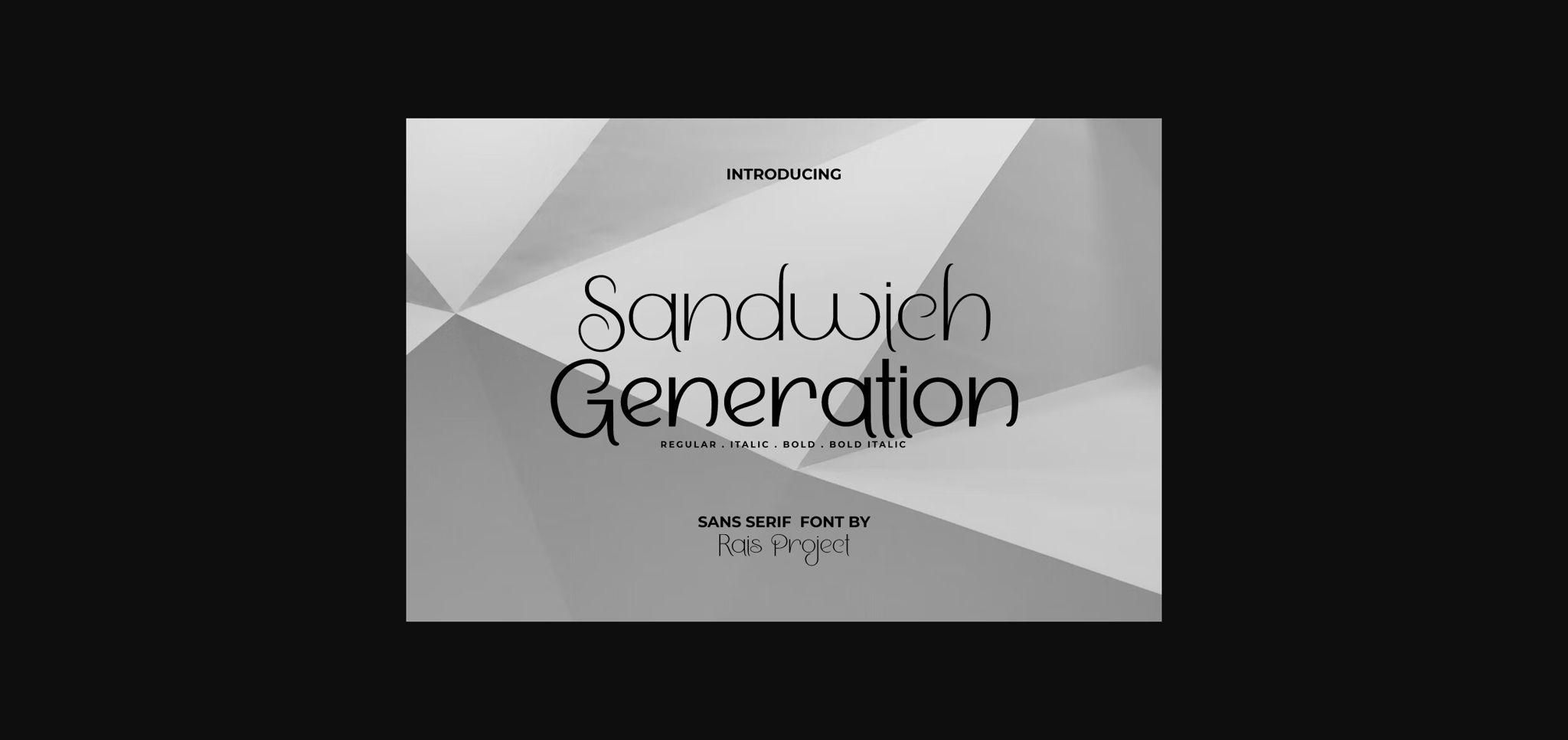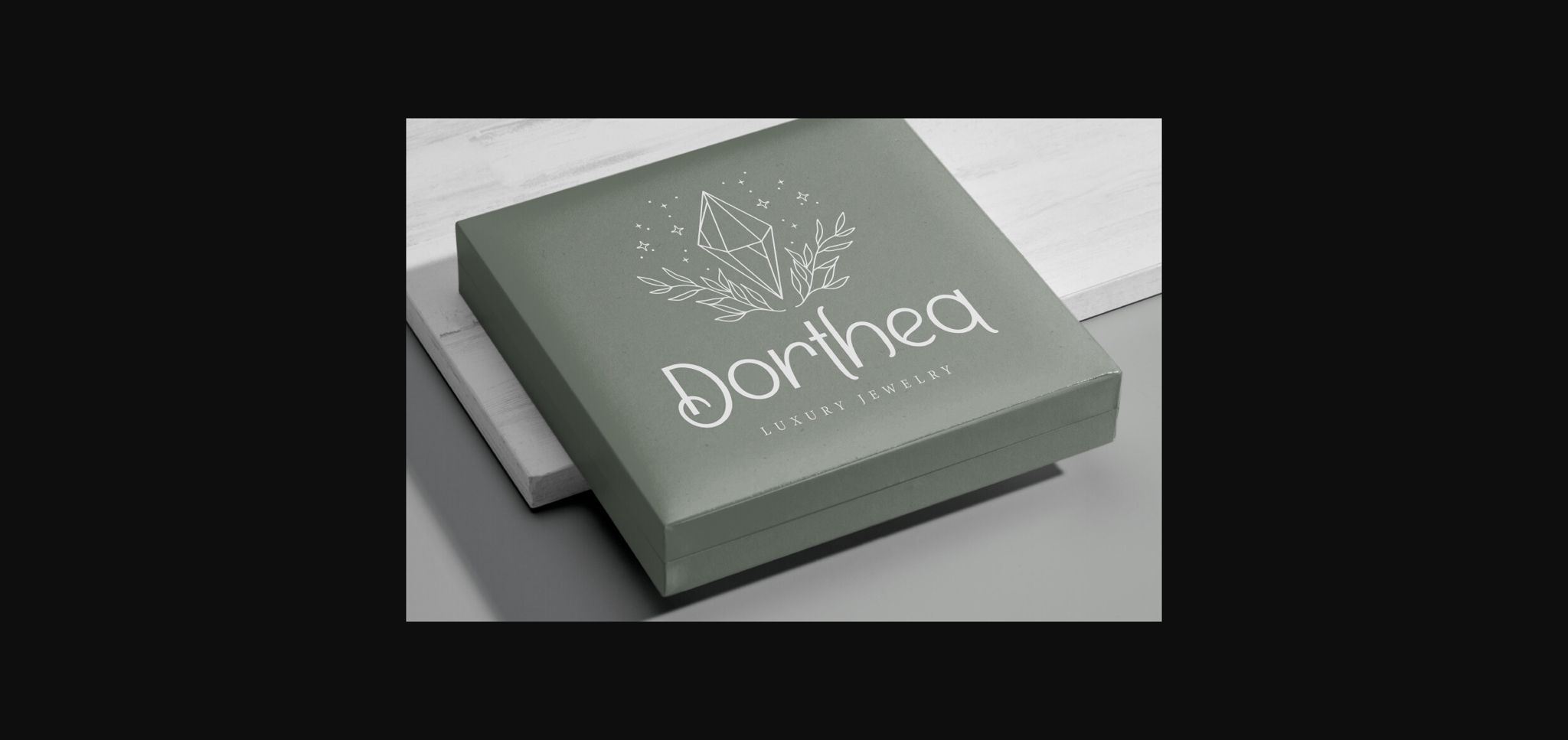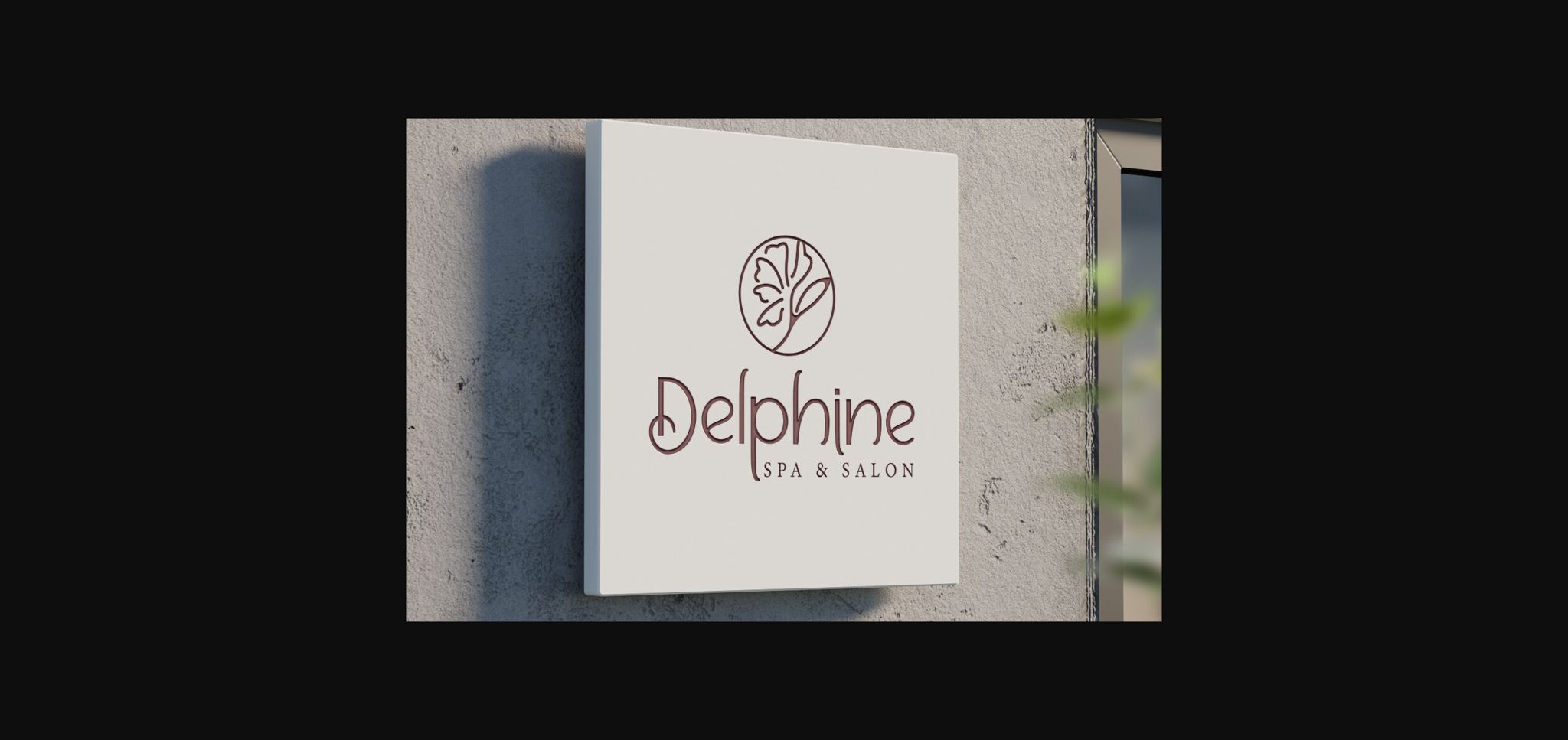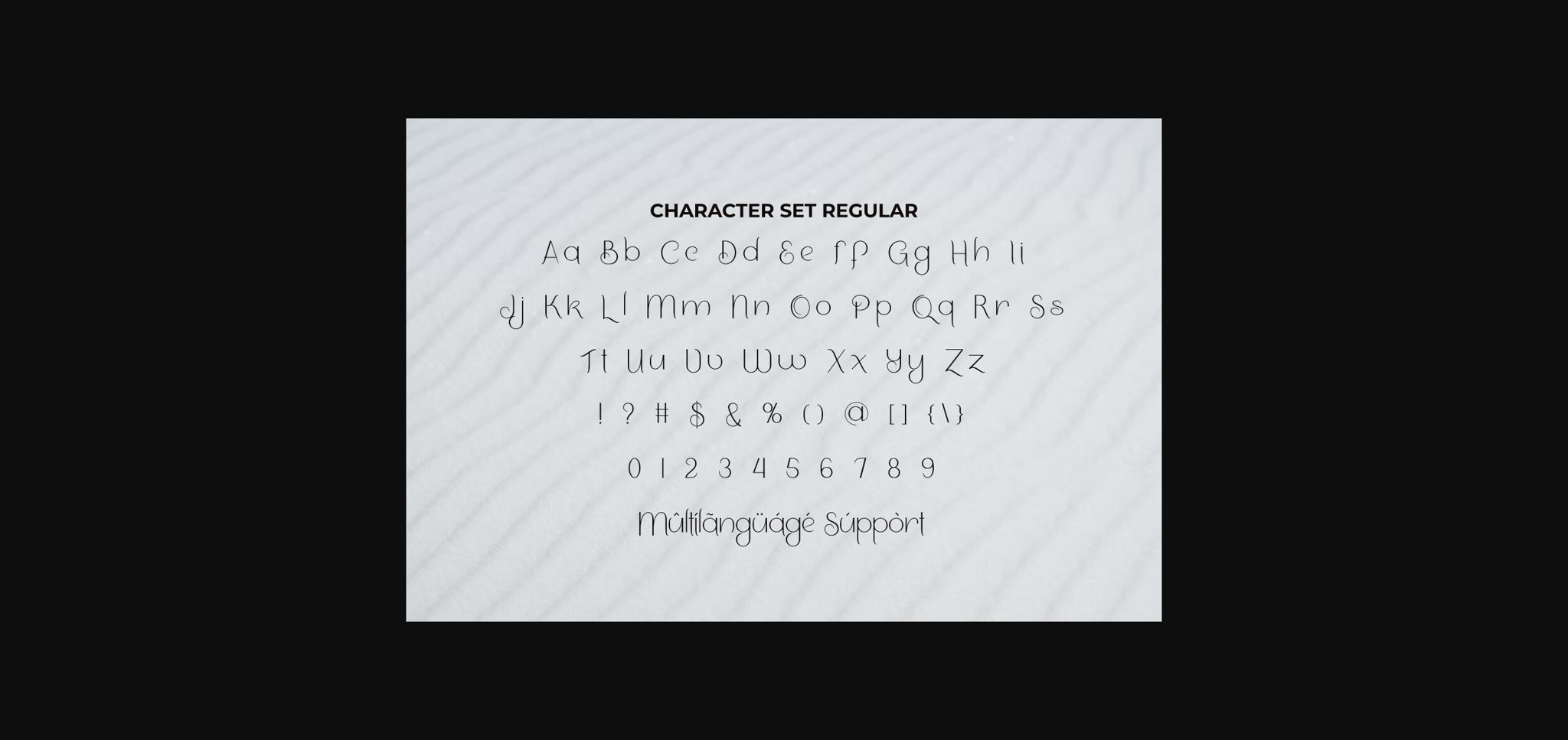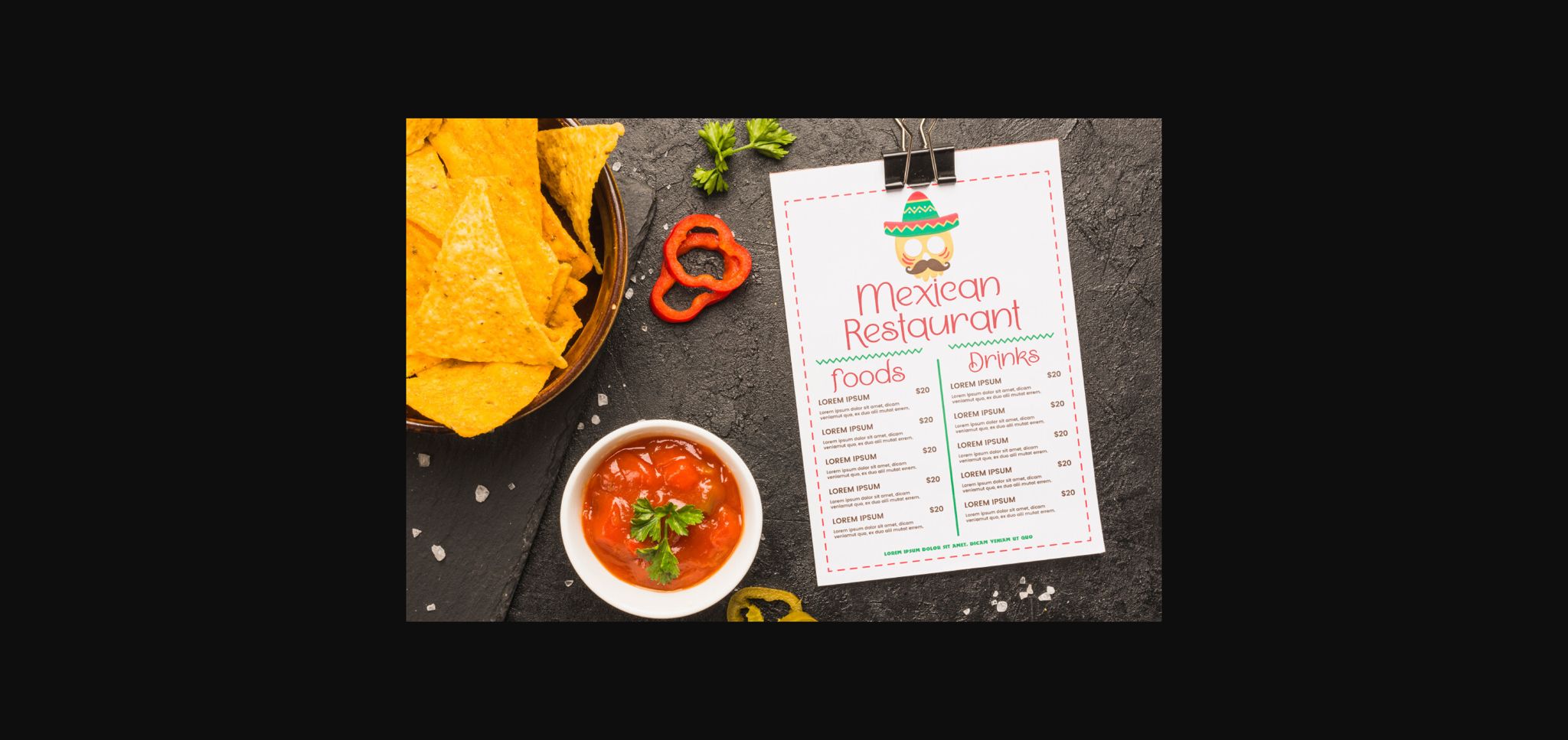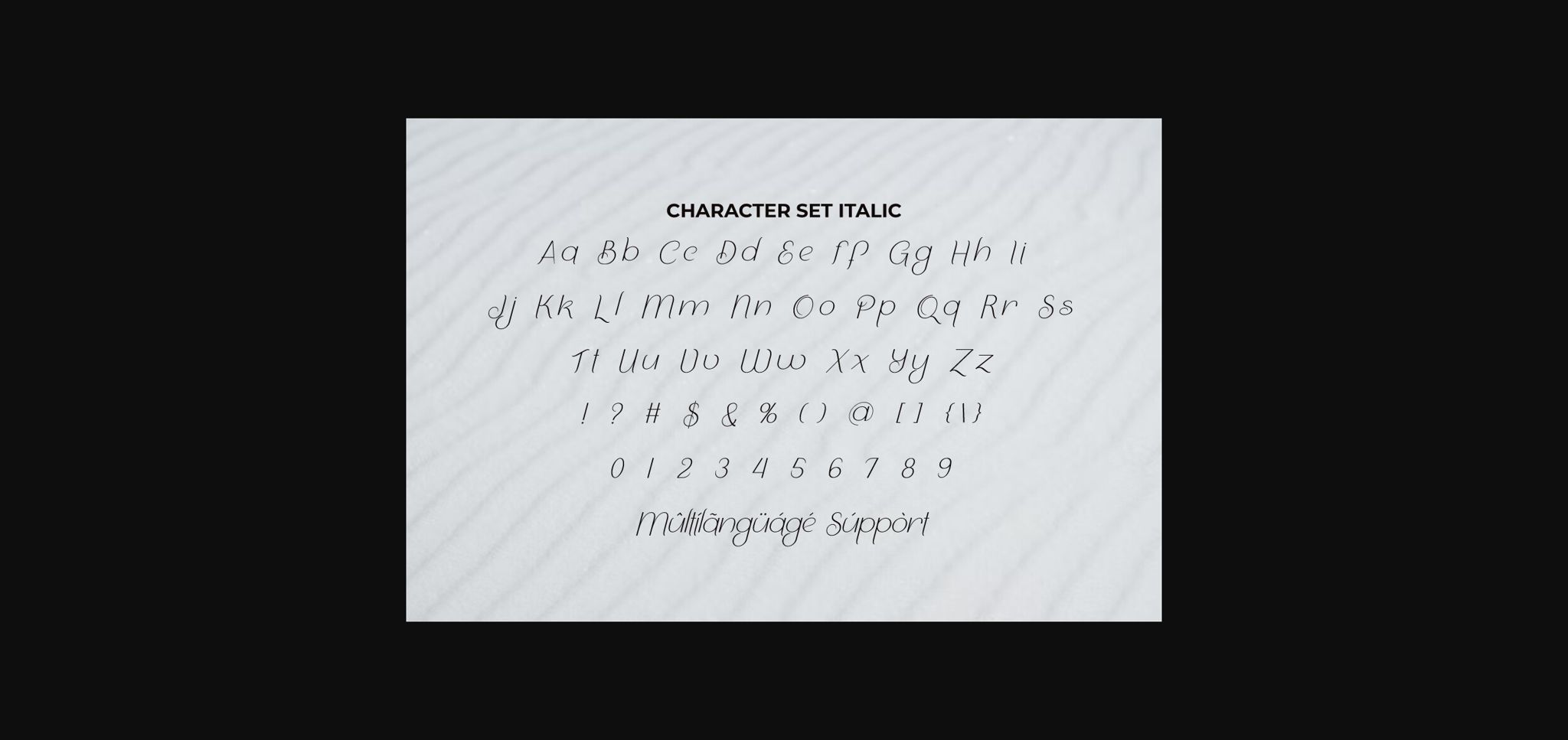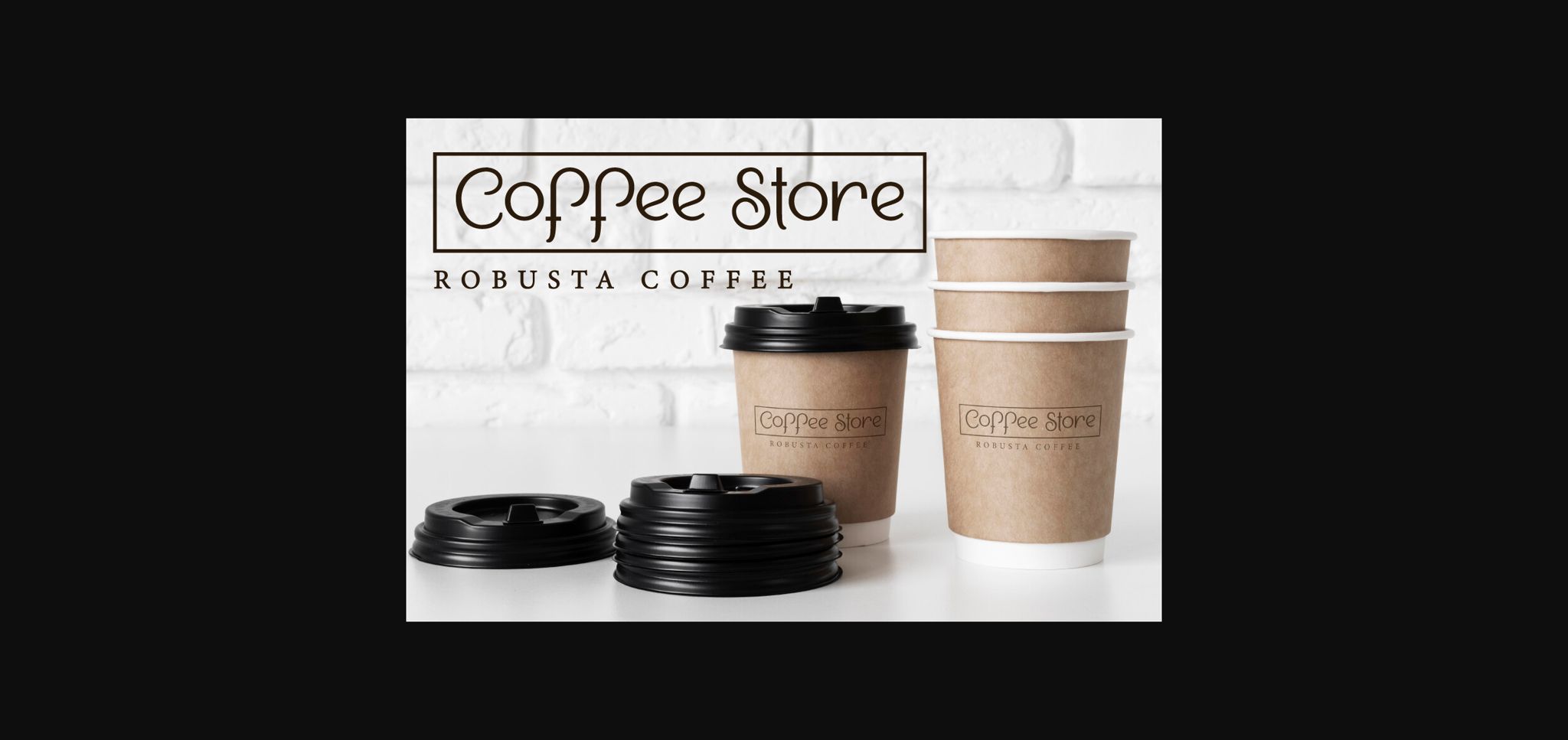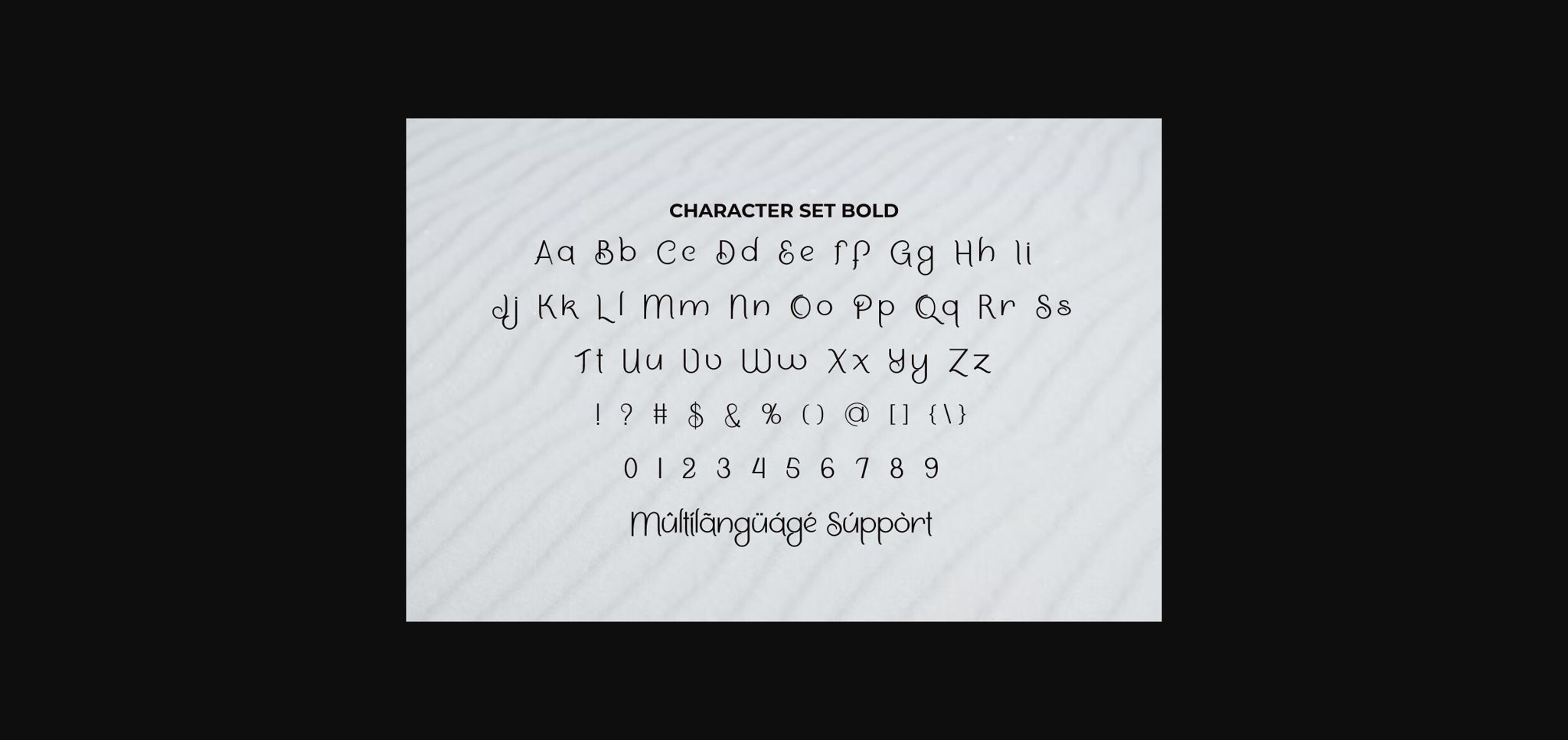
Sandwich Generation Font
About Sandwich Generation Font
Sandwich Generation Font is made to be a unique and modern eye catchy display font with several different styles: Regular, Italic, Bold, and Bold Italic, that which will make your designs attractive! Such as brand logo, business card, custom design, invitation, label, menu, product packaging, poster, quote, signage, web page, etc.